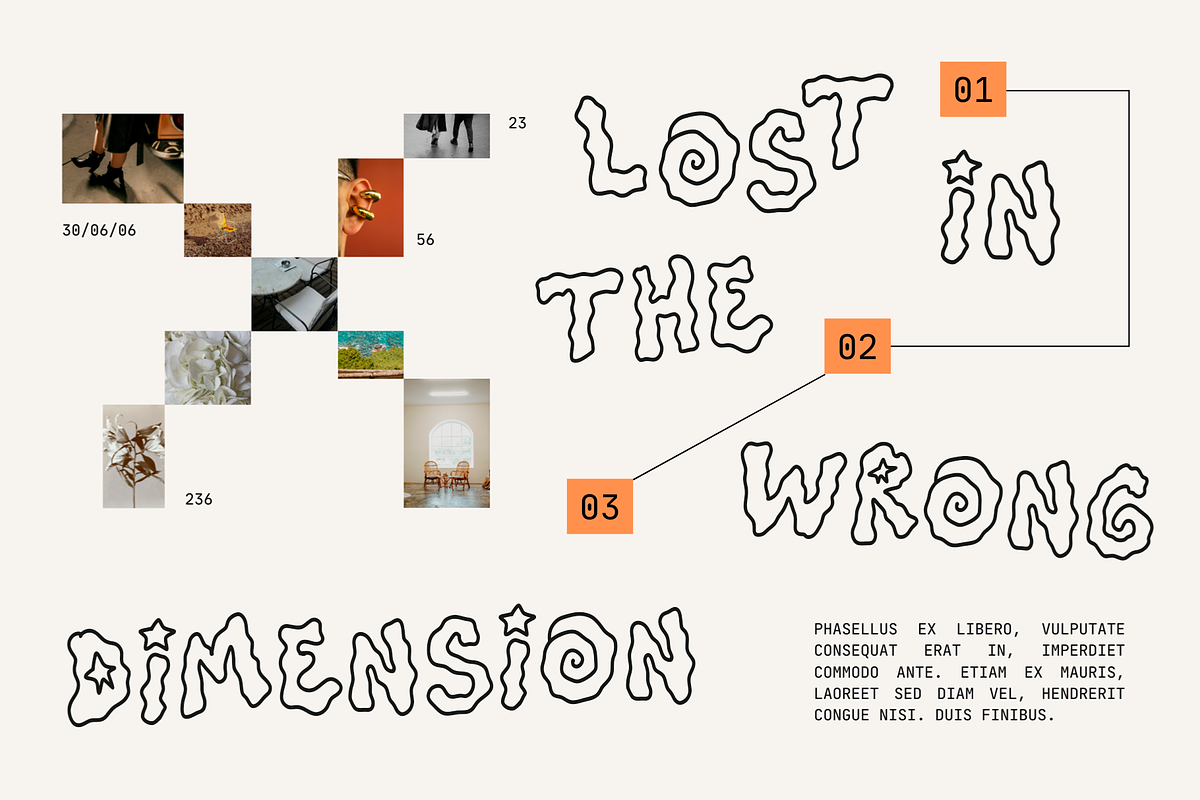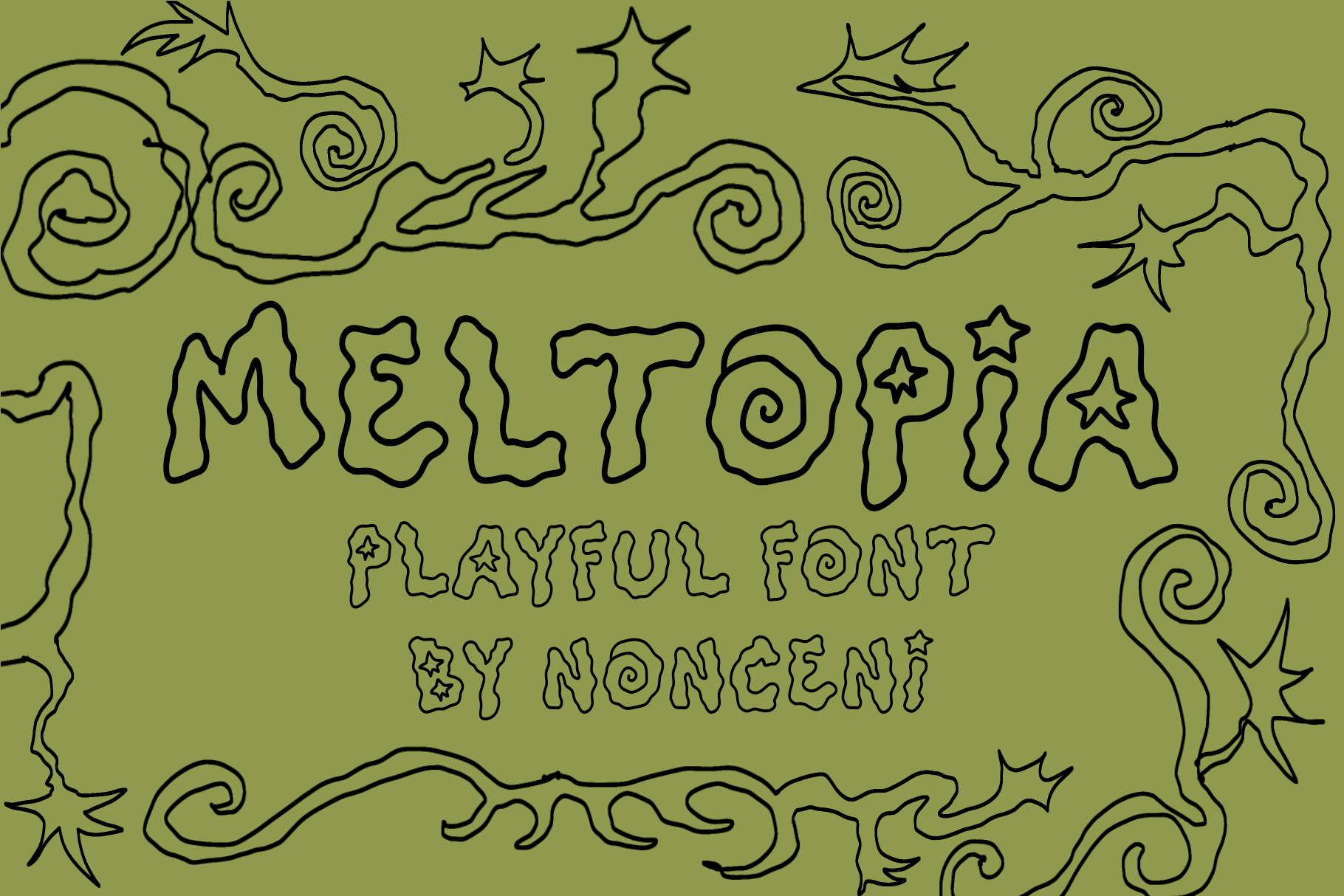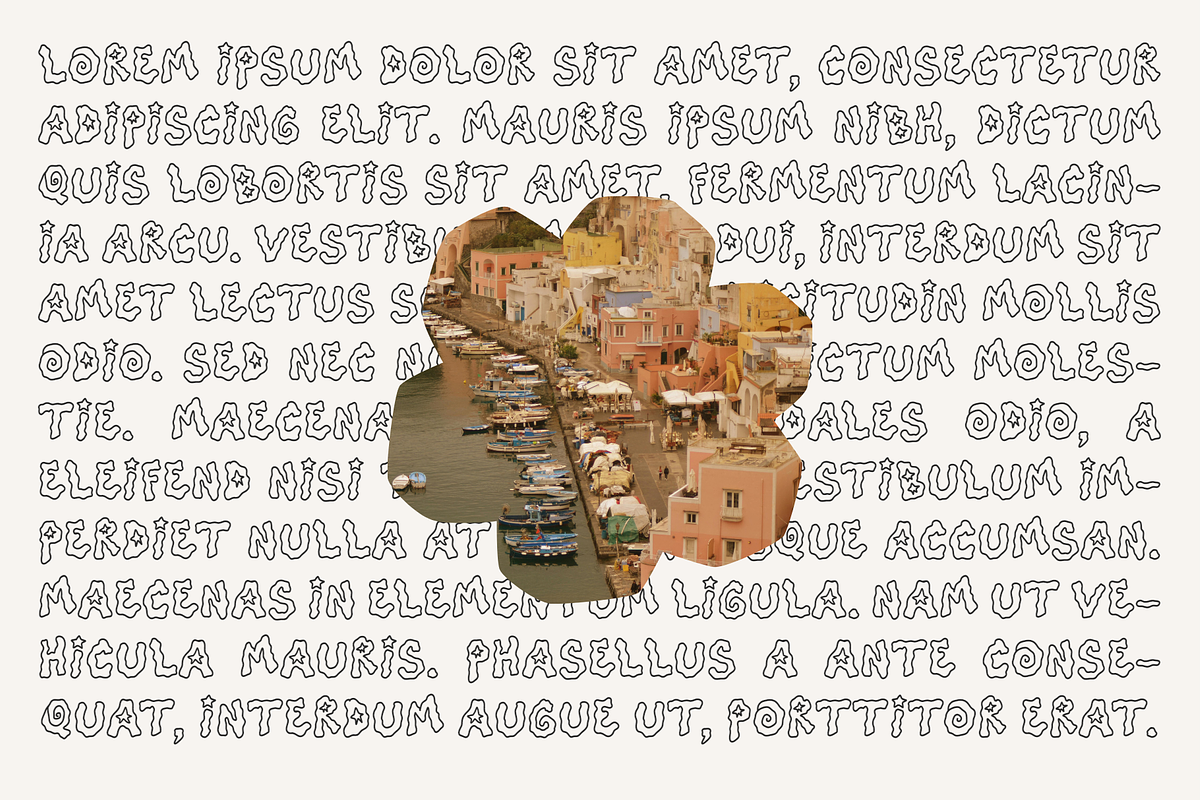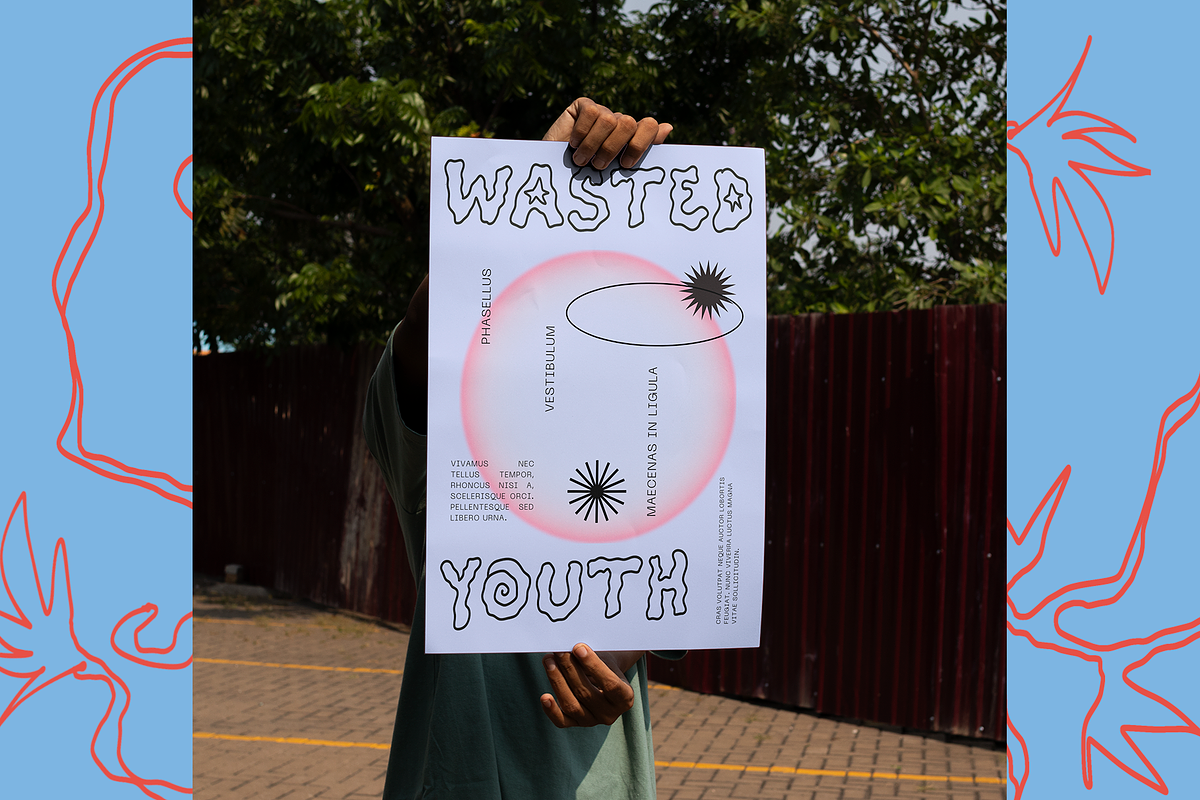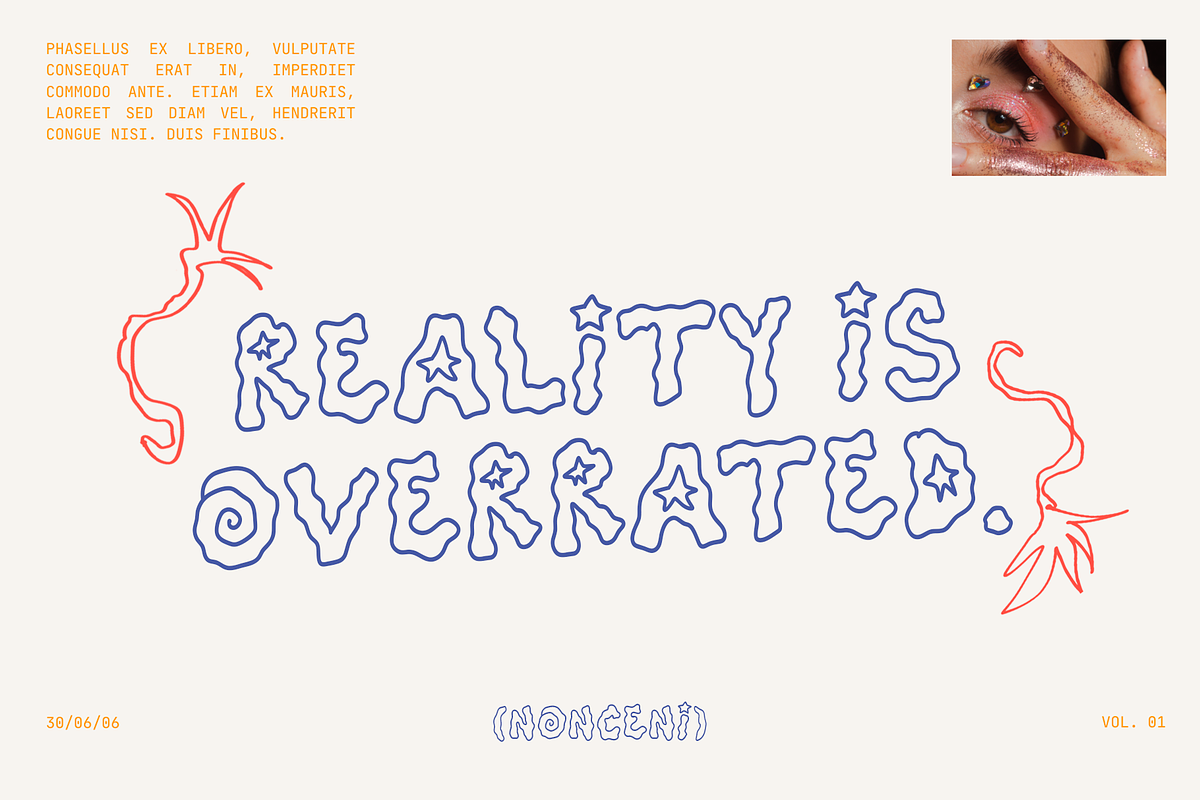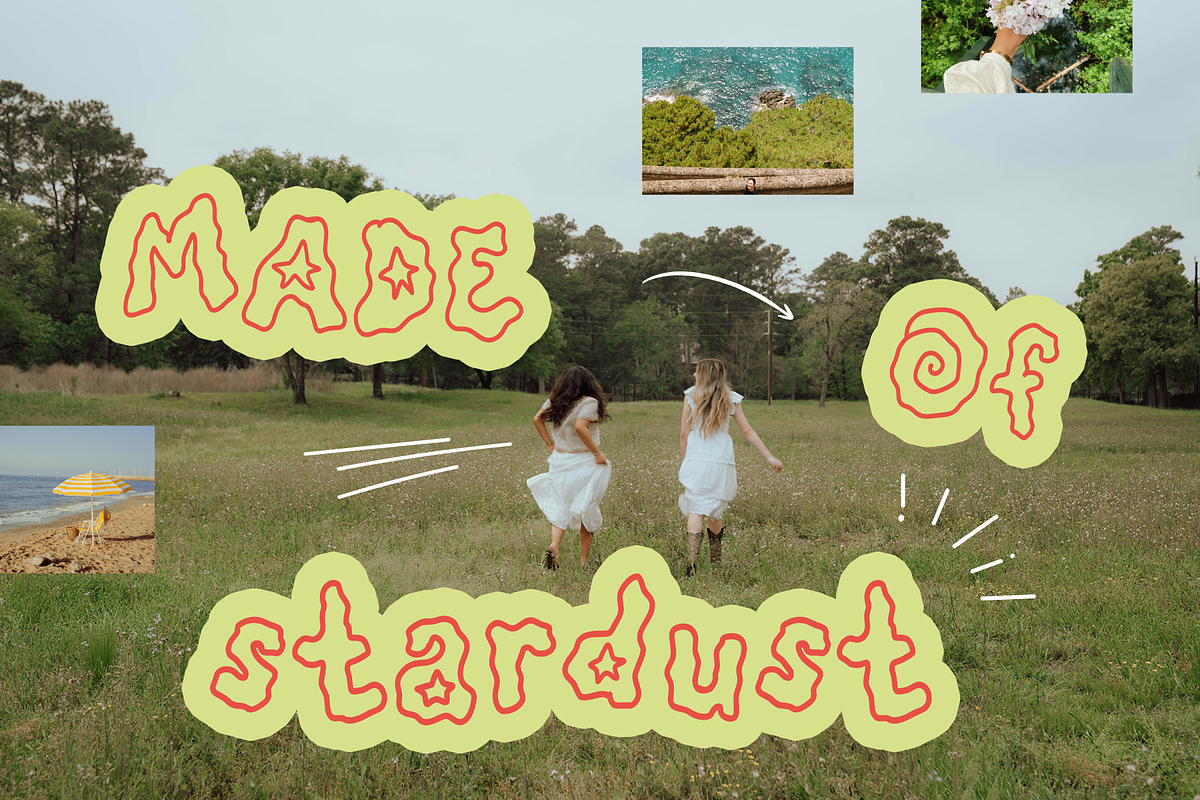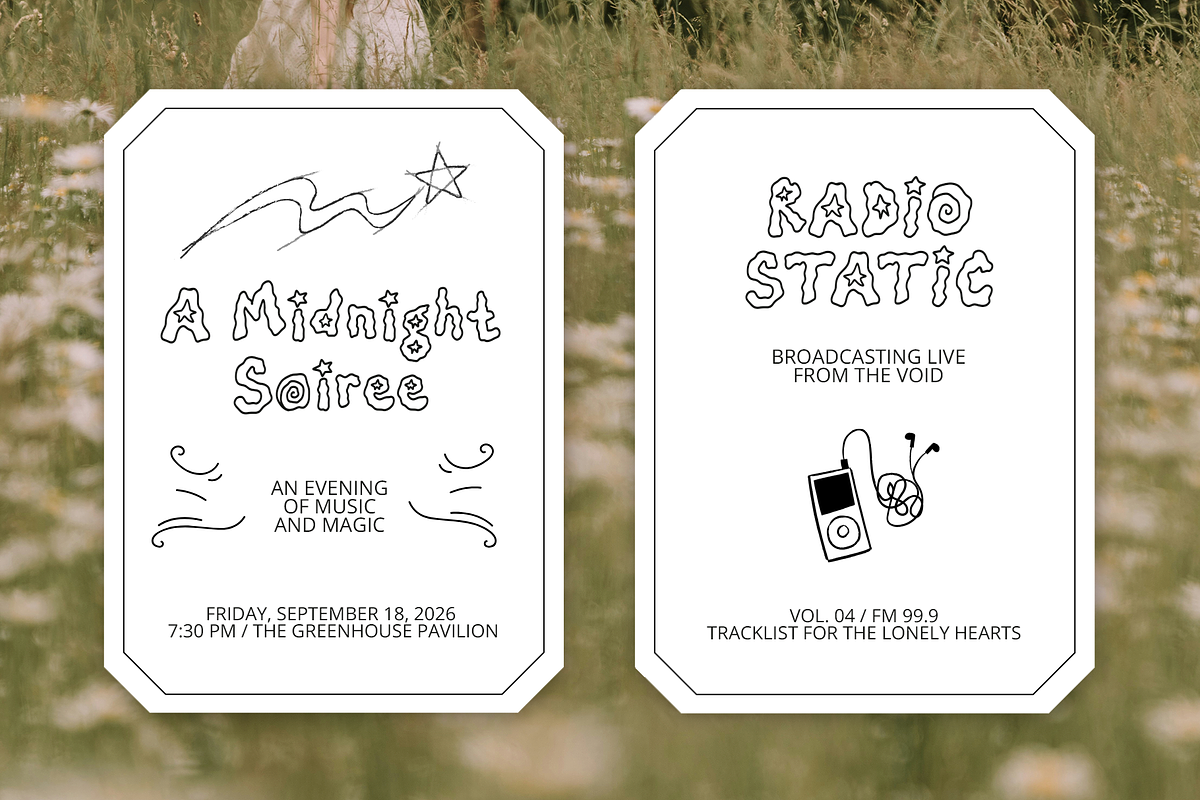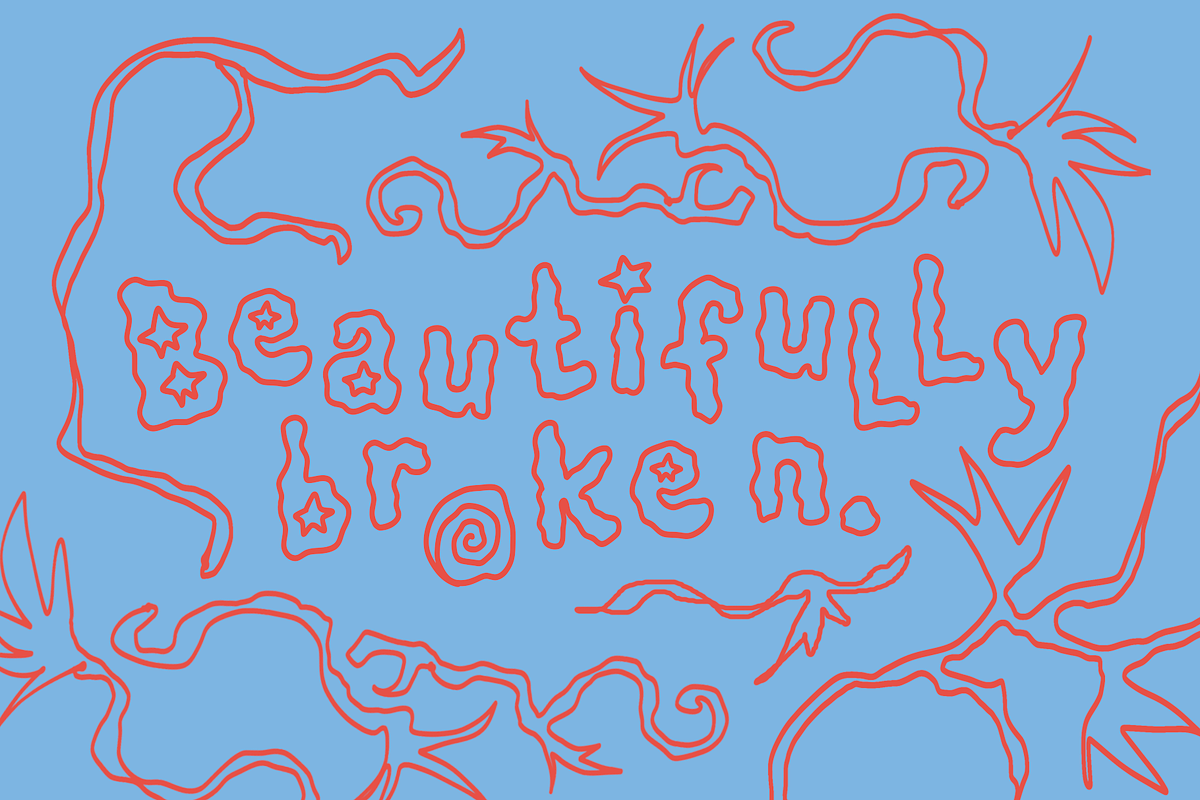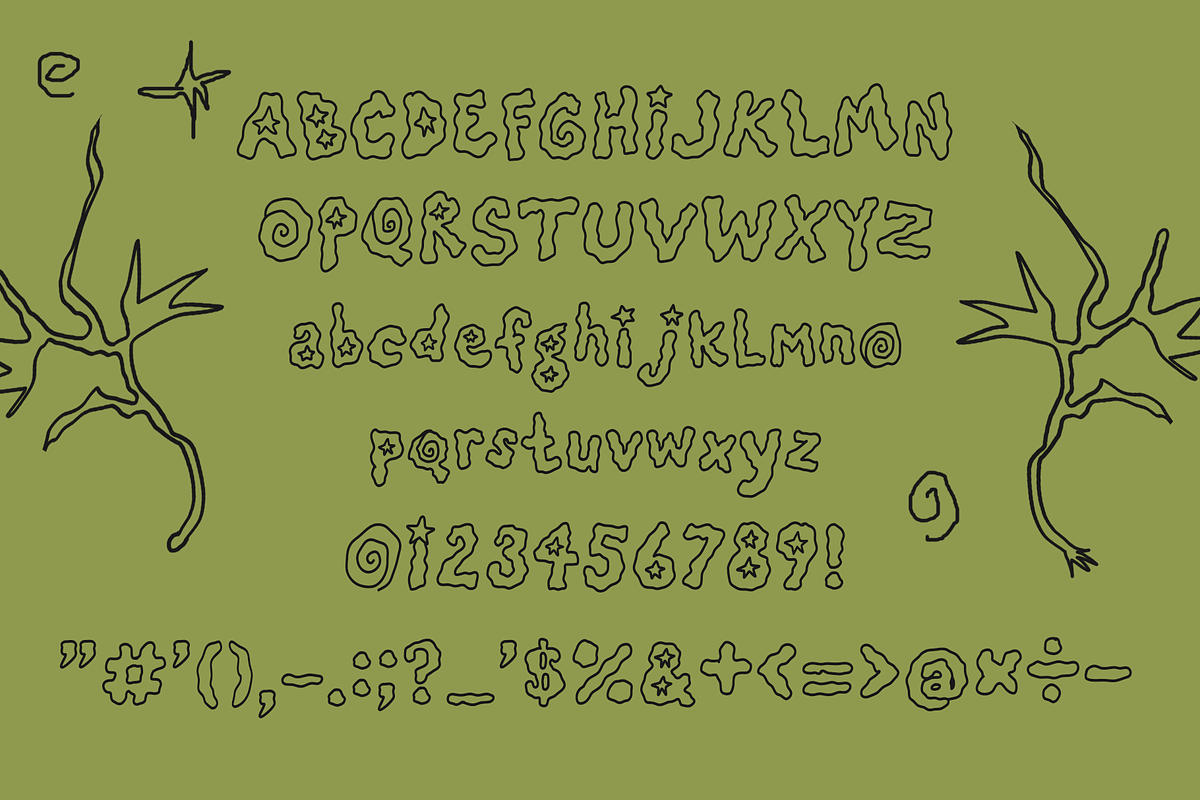
Meltopia Outline Retro Font
Meet MELTOPIA — a playful, handwritten outline script font with a distinct retro-psychedelic character.
Featuring flowing, "melting" letterforms and custom star details, this typeface brings a bold, artistic touch to your creative projects. Please note that this font comes as an outline (line-only) version exactly as shown, making it a unique graphical element for your layouts.
Best for:
Merch & Streetwear: Eye-catching prints for t-shirts, hoodies, and hats.
Posters & Cover Art: Bold headings for event flyers, music album covers, and creative zines.
Packaging Design: Modern branding for snacks, beverages, or youth cosmetics.
Editorial Layouts: Creative text textures and stylized headlines for independent magazines.